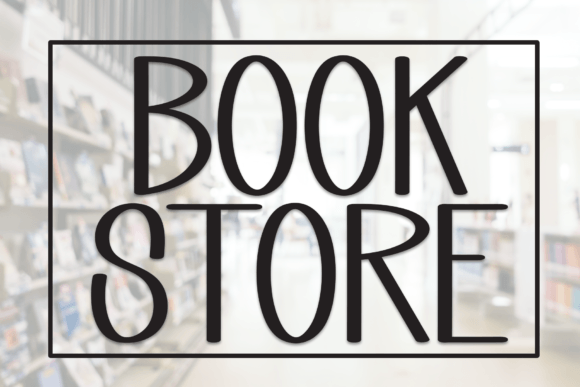
Introducing Book Store Font: Adding a Touch of Whimsy to Your Designs
Are you tired of using the same old fonts in your designs? Do you want to add a touch of personality and whimsy to your creations? Look no further than Book Store Font, a charming and hand-drawn display font that’s perfect for accentuating the joyous aspects of your designs.
A Font that’s Full of Warmth and Playfulness
Book Store Font is a beautifully crafted font that’s overflowing with warmth and playfulness. Its sweet and friendly handwritten style makes it a flawless choice for adding an enchanting twist to your wedding invites, heartfelt notes, or any other design that stands to benefit from an infusion of joviality.
Whether you’re a designer, crafter, or DIY enthusiast, Book Store Font is the perfect choice for anyone looking to add a personal touch to their creations. Its unique and playful style is sure to capture the attention of your audience and leave a lasting impression.
Book Store Font is a versatile font that can be used for a wide range of design projects. Here are just a few ideas to get you started:
- Wedding invitations and stationery: Add a touch of romance and whimsy to your wedding invites and stationery with Book Store Font.
- Party decorations and invitations: Use Book Store Font to create playful and eye-catching party decorations and invitations.
- Social media graphics: Add a personal touch to your social media graphics with Book Store Font.
- Blog and website headers: Use Book Store Font to create eye-catching blog and website headers that reflect your brand’s personality.
- DIY crafts and gifts: Add a personal touch to your DIY crafts and gifts with Book Store Font.
What Makes Book Store Font So Special?
So, what makes Book Store Font so special? Here are just a few features that set it apart:
- Hand-drawn with love: Book Store Font is carefully hand-drawn with love and attention to detail, giving it a unique and personal touch.
- Unique and playful style: Book Store Font has a one-of-a-kind style that’s sure to capture the attention of your audience.
- Warm and inviting: Book Store Font is overflowing with warmth and playfulness, making it perfect for designs that need a personal touch.
- Easy to read: Despite its playful style, Book Store Font is easy to read and understand, making it perfect for body text and headlines.
How to Use Book Store Font in Your Designs
Using Book Store Font in your designs is easy. Here are just a few tips to get you started:
- Pair it with other fonts: Book Store Font pairs perfectly with other fonts, so feel free to experiment with different combinations.
- Use it for headlines and titles: Book Store Font is perfect for headlines and titles, where its playful style can really shine.
- Add it to your graphics: Use Book Store Font to add a personal touch to your graphics, such as social media graphics and party decorations.
- Experiment with colors: Book Store Font looks great in a variety of colors, so don’t be afraid to experiment and find the perfect hue for your design.
In conclusion, Book Store Font is a charming and hand-drawn display font that’s perfect for adding a touch of whimsy to your designs. Its sweet and friendly handwritten style makes it a flawless choice for wedding invites, heartfelt notes, or any other design that stands to benefit from an infusion of joviality.
Whether you’re a designer, crafter, or DIY enthusiast, Book Store Font is the perfect choice for anyone looking to add a personal touch to their creations. So why wait? Download Book Store Font today and let your designs tell delightful stories!